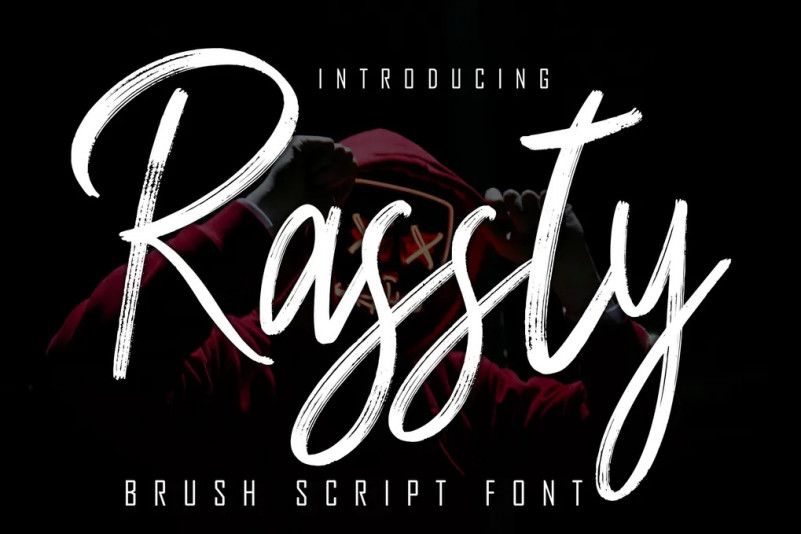
Rassty Font
Rassty is a natural handmade textured brush text font with an irregular base line. Suitable for use in title design. Such as clothing, covers, book titles, films, quotes, branding, logos, greeting cards, t-shirts, packaging designs, posters, and others. Rassty includes the full set of upper and lower case letters, as well as multi-language support, numbers, punctuation, ligature